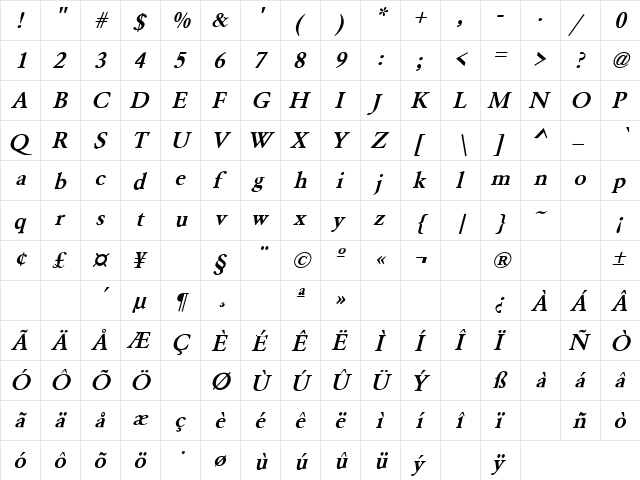
Ummama 4 Italic
Design Context for Ummama 4 Typeface
Ummama 4 is a composed and adaptable typeface that performs quietly and consistently across a wide range of design contexts. The dynamic lean of this cut emphasises speed and emphasis in any layout.
Pro Tip: Use Ummama 4 for emphasis, pull quotes, and subheadings where its slanted energy can add rhythm to the layout.